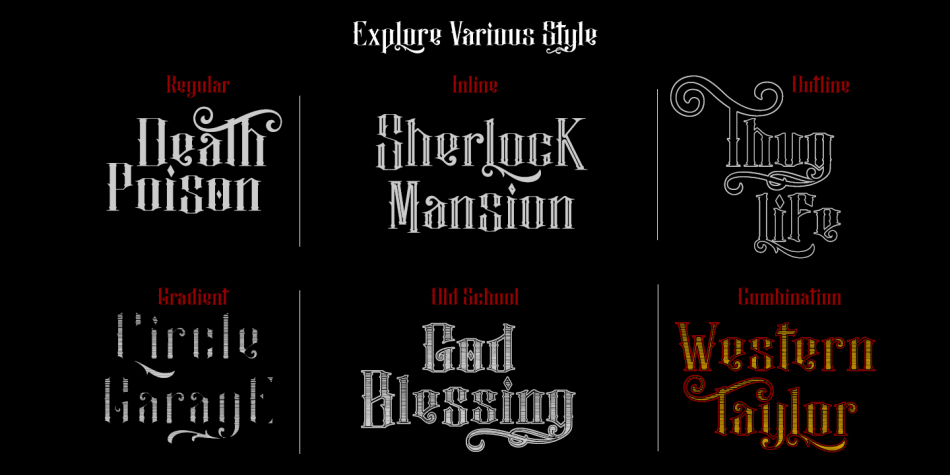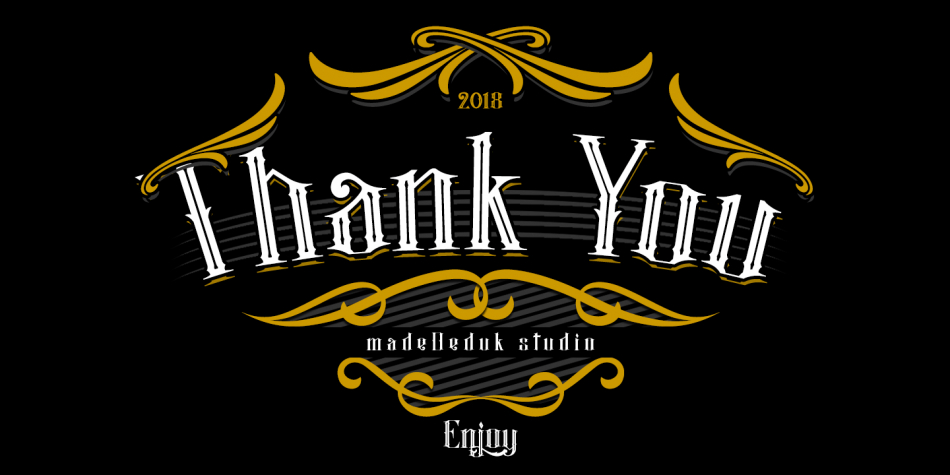
| Designed by Suandana Ipandemade, Justify is a dingbat and hand display font family. This typeface has six styles and was published by madeDeduk. |
Justify Fonts Package is a typeface inspired in tattoo letters! Justify have six style plus ornament, Justify perfect for all your designs project.